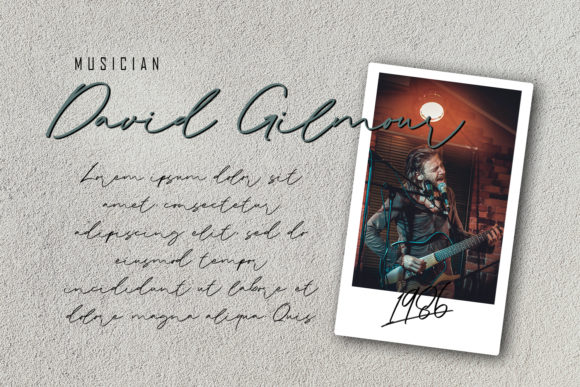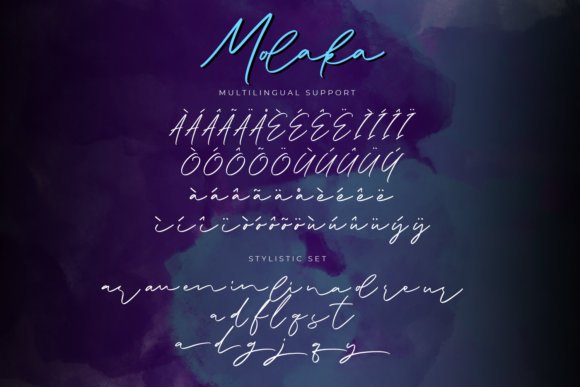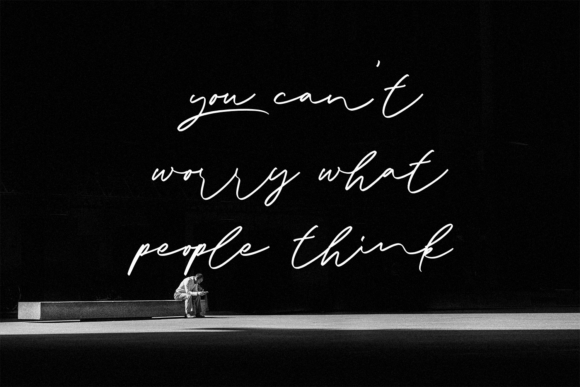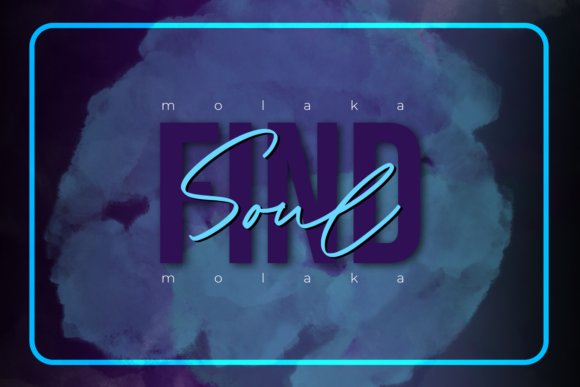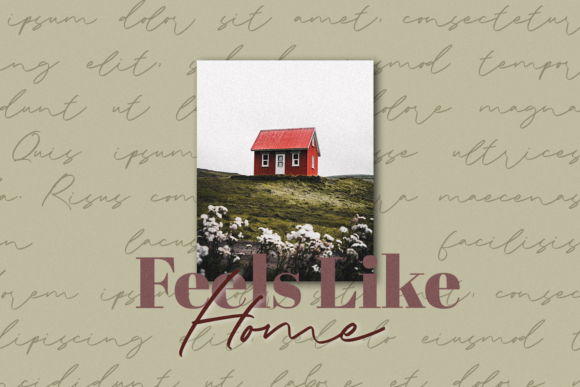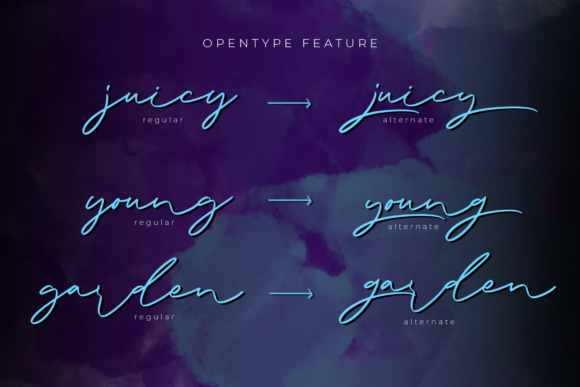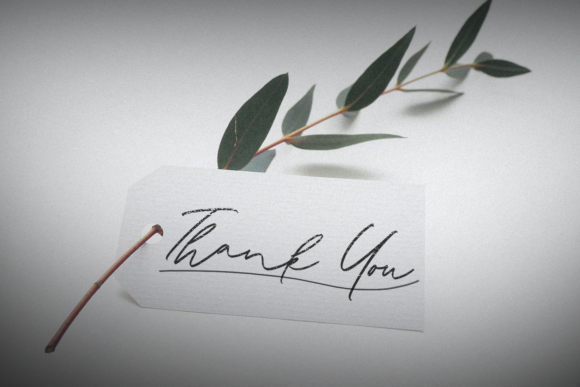
Molaka Font
About Molaka Font
Molaka is a fashionable and delicate script font. No matter the topic, this font will be an incredibly asset to your fonts’ library, as it has the potential to elevate any creation.